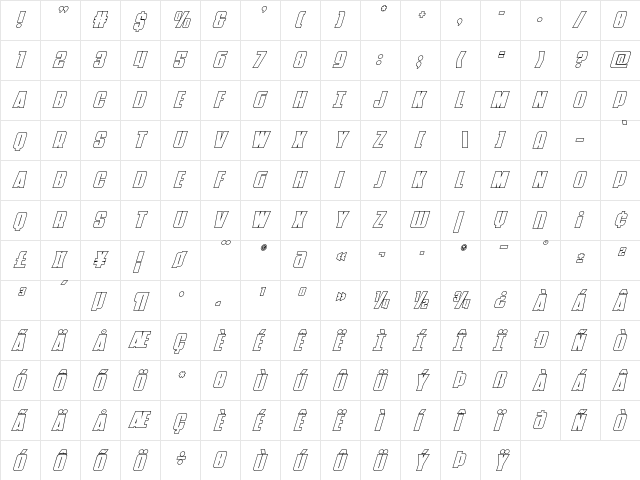
Punch Outline Super-Italic Regular
Design Context for Punch Outline Super-Italic Typeface
Punch Outline Super-Italic is built around its visual character rather than neutral utility — its distinctive forms are designed to make an impression at display sizes. Its italic angle brings a sense of urgency and motion to the letterforms.
Font Pairing: Pair with a clean neutral sans-serif for body copy to let Punch Outline Super-Italic's character lead without overwhelming the composition.
Pro Tip: Treat Punch Outline Super-Italic as the centrepiece of your typographic hierarchy. One strong heading set in a decorative face can carry an entire layout.